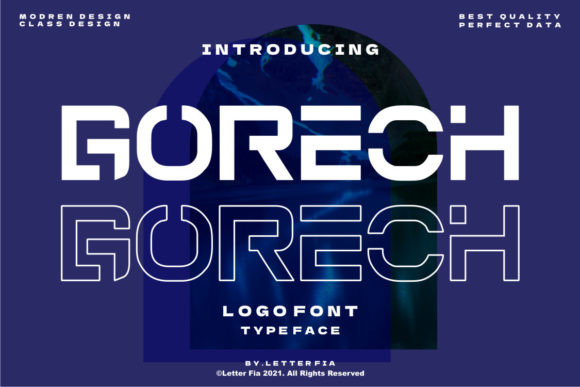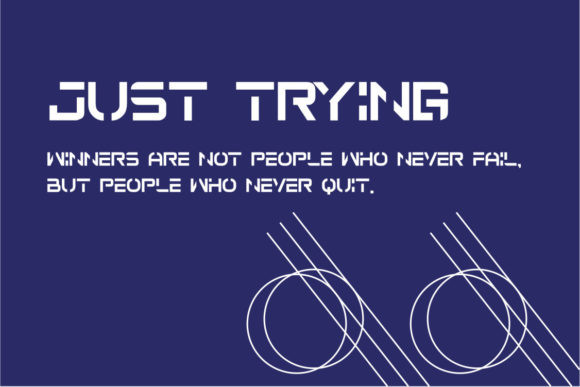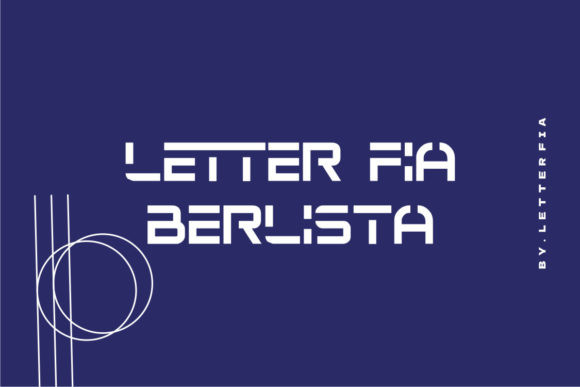
Gorech Font
Gorech is a cool, futuristic and bold display font. This font is ideal for writing web designs, business cards, or pretty much anything else that requires a unique touch.